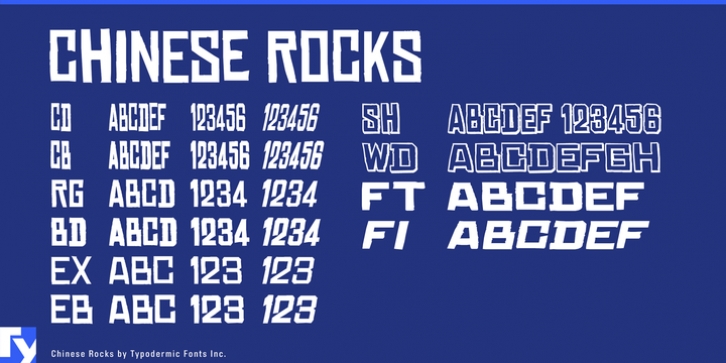
Chinese Rocks was designed by Ray Larabie and published by Typodermic. Chinese Rocks contains 16 styles and family package options.
Chinese Rocks was inspired by hand-cut rubber-stamp lettering on 20th Century Chinese export containers.